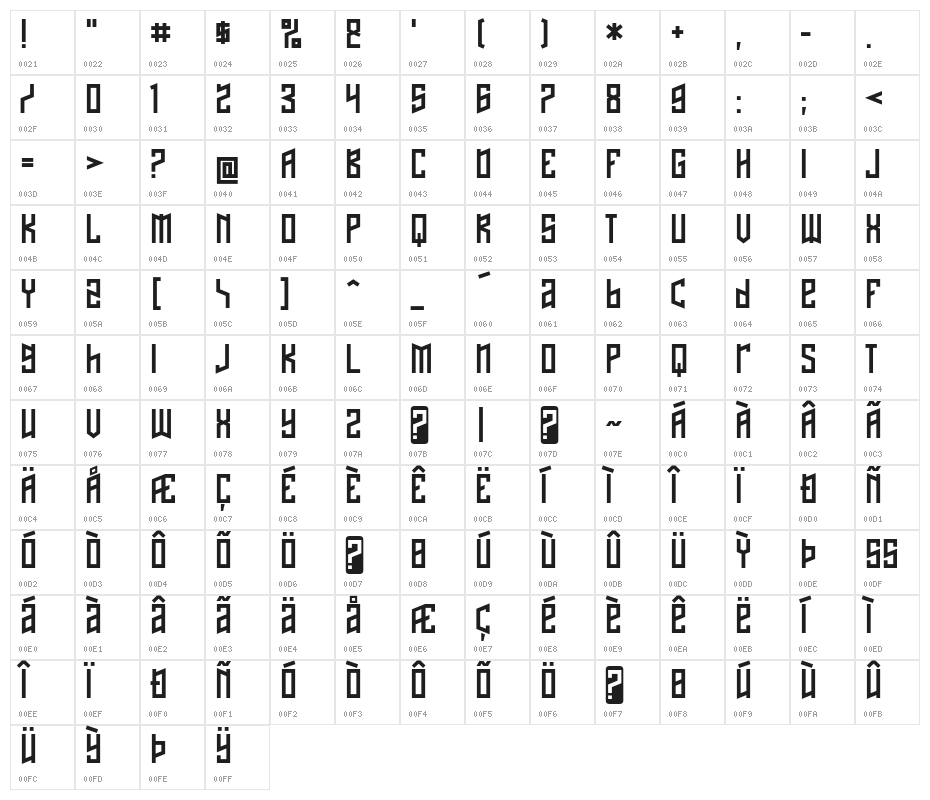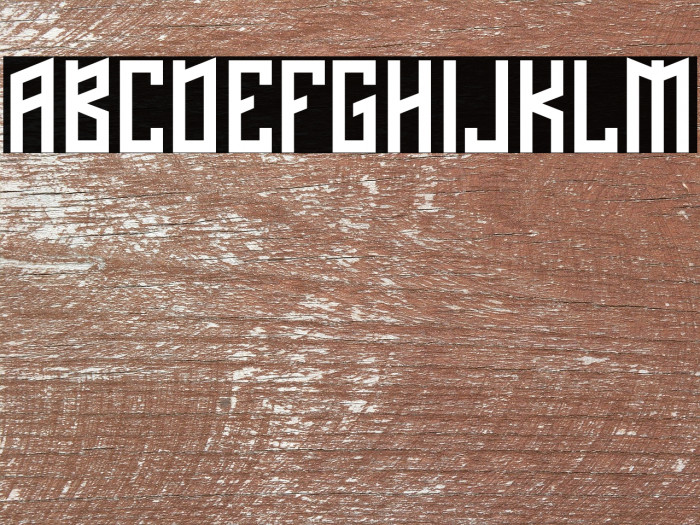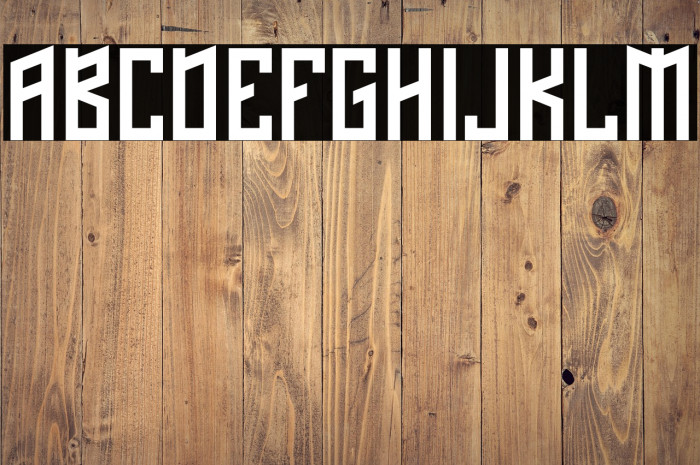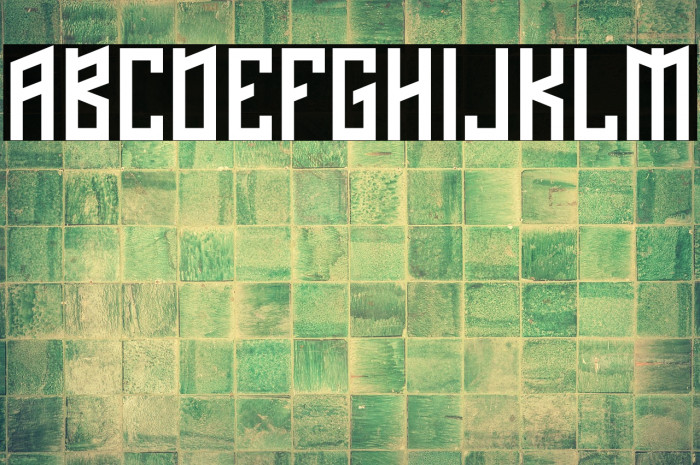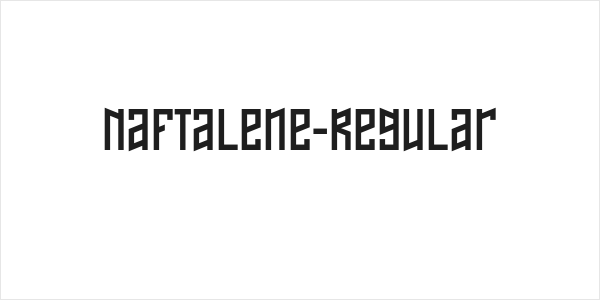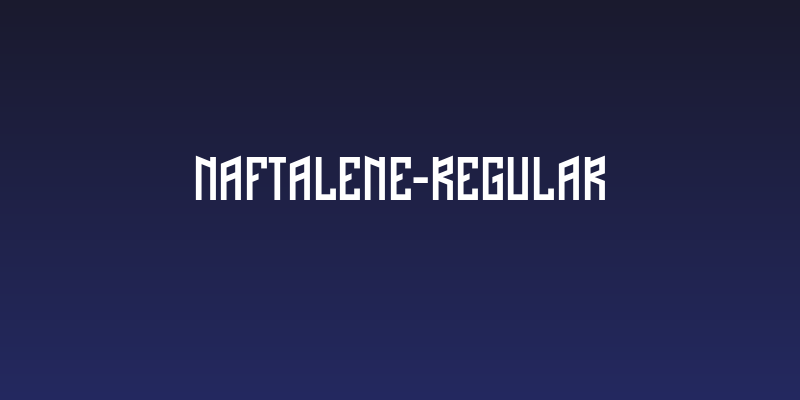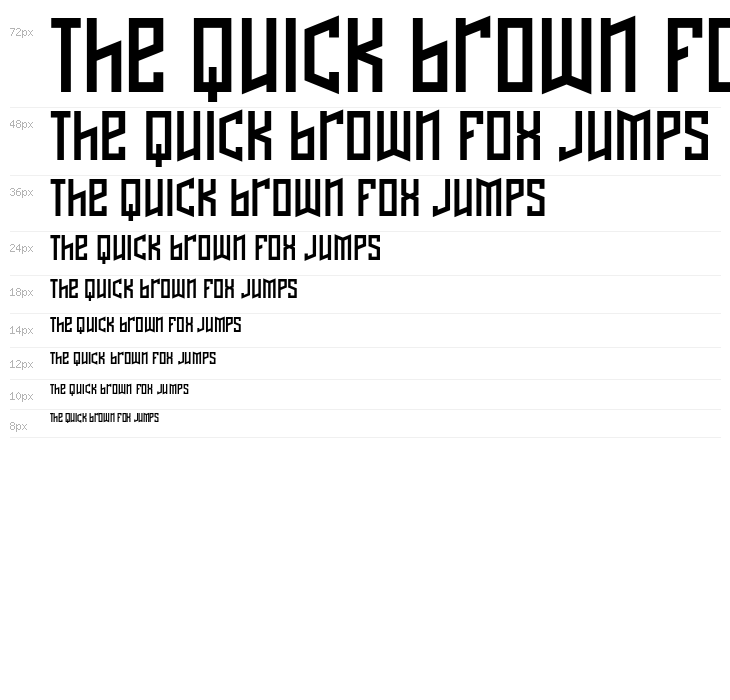
Naftalene-Regular Font
Naftalene-Regular Description
This font features a bold and geometric design with sharp angles and a strong presence. The characters are constructed with a consistent thickness, giving it a uniform and cohesive look. The uppercase and lowercase letters maintain a similar structure, enhancing readability while retaining a unique style. Numbers and special characters follow the same geometric pattern, ensuring a harmonious appearance across all elements. The font's distinct style makes it suitable for attention-grabbing designs.